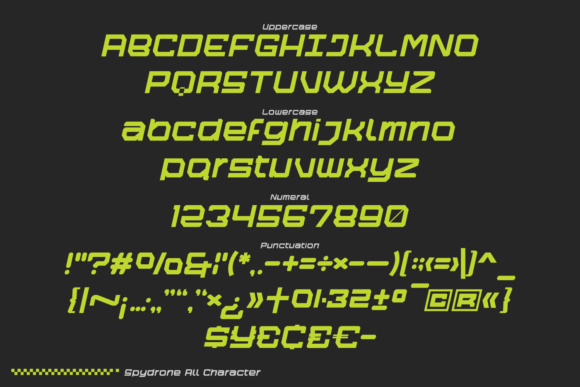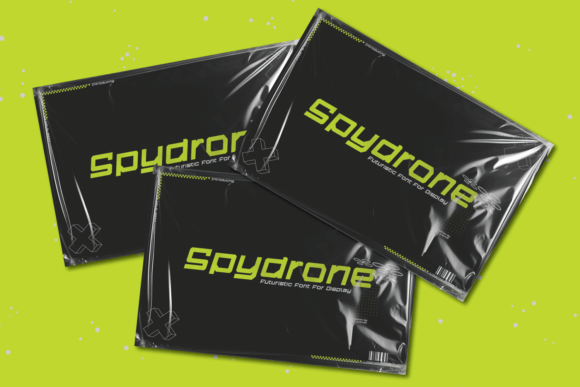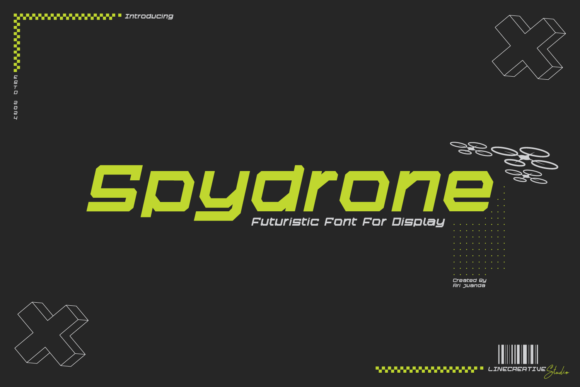
Spydrone Font
Designer: Line creative
Spydrone font is an oblique typeface characterized by its sleek, futuristic design. The overall style is perfect for tech-related projects, sci-fi themes, or any design requiring a cutting-edge, digital look.